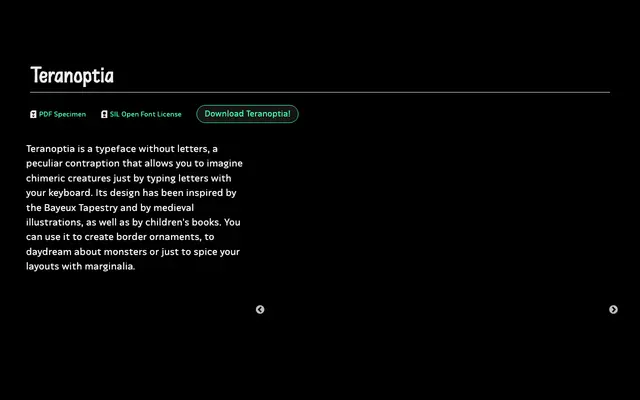
Teranoptia
A letterless pictorial font by Ariel Martín Pérez that maps keyboard characters to hand-drawn chimeric creatures and plants inspired by the Bayeux Tapestry and medieval marginalia.
Rather than letterforms, each key produces an illustrated animal, plant or hybrid creature drawn from medieval manuscript traditions and the Bayeux Tapestry. The current release covers A–Z with some diacritics and symbols, giving enough coverage to build continuous border ornaments or scatter marginalia through a layout. Released under the SIL Open Font License and available as a free download from Tunera.
Teranoptia contains no letterforms whatsoever; each keystroke produces an illustrated creature, plant or ornamental motif drawn from medieval and Bayeux Tapestry sources. It functions as a dingbat or pictorial font, best classified as a display ornament face.